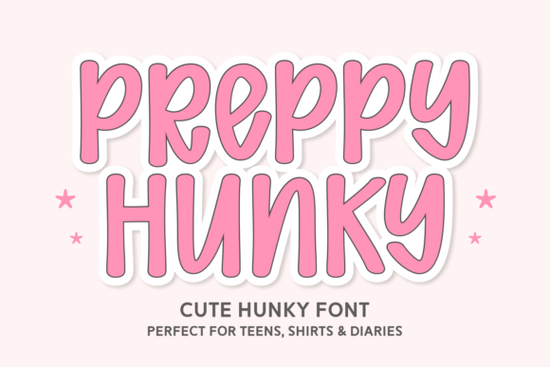
If you're looking for a display font that feels both nostalgic and fresh think school notebooks meets summer festival signage Preppy Hunky Font is worth your attention. It’s not overly polished or sterile; instead, it carries the relaxed energy of hand-drawn letters with just enough structure to stay legible at small sizes. Designers working on birthday party printables, crafters cutting vinyl stickers, or small businesses building casual brand assets often need fonts that stand out without shouting. This one does that quietly but confidently.
What makes Preppy Hunky different from other retro display fonts?
Most retro-inspired fonts lean hard into one era either full-on 70s psychedelia or tidy 50s diner signage. Preppy Hunky sits comfortably in the middle. Its letterforms have gentle curves and subtle bounce, like chalk drawn on a sun-bleached sidewalk. The lowercase “a” and “g” are open and friendly, while capitals hold presence without stiffness. It’s designed to work across formats: SVG for Cricut and Silhouette users, PNG for quick drag-and-drop into Canva or PowerPoint, and OTF for professional layout tools.
You’ll notice it avoids the “too cute” trap many handwritten-style fonts fall into. There’s no excessive swash or forced whimsy just consistent rhythm and warmth. That balance helps it scale well, whether you’re labeling a jar of homemade jam or designing a YouTube thumbnail for a craft tutorial.
Who uses this font and where does it really shine?
Crafters and educators love it for printable classroom resources think themed reading logs, award certificates, or bulletin board headers. Its readability at 18–24pt makes it practical, not just decorative. Print-on-demand sellers find it effective for T-shirt designs targeting teens and young adults who appreciate vintage aesthetics without irony. And small business owners use it in social media banners, event flyers, and packaging labels where personality matters more than formality.
It’s especially helpful if you serve multilingual audiences. Unlike many playful fonts limited to English, Preppy Hunky supports accented characters for Spanish, French, German, Portuguese, and several Eastern European languages so your bilingual sticker pack or Etsy listing stays cohesive.
How does it compare to similar fonts on Creative Fabrica?
If you’ve tried Black Artist Font, you’ll recognize its bold confidence but Preppy Hunky swaps high-contrast drama for approachable charm. Rushk Font leans more geometric and modern; Preppy Hunky feels softer, like it was sketched first. Fans of Super Flower Font will appreciate the shared playfulness, though Preppy Hunky has tighter spacing and better screen legibility. And while Booom Font delivers explosive energy, Preppy Hunky keeps things grounded ideal when you want fun and function.
- Pair it thoughtfully: Use it for headlines only, and pair with a clean sans-serif (like Montserrat or Inter) for body text.
One last note: If you’re building a cohesive brand kit, consider pairing Preppy Hunky with coordinating elements like doodle borders or retro color palettes (think mustard yellow, dusty rose, and sky blue). It’s flexible enough to anchor a theme without demanding all the attention.